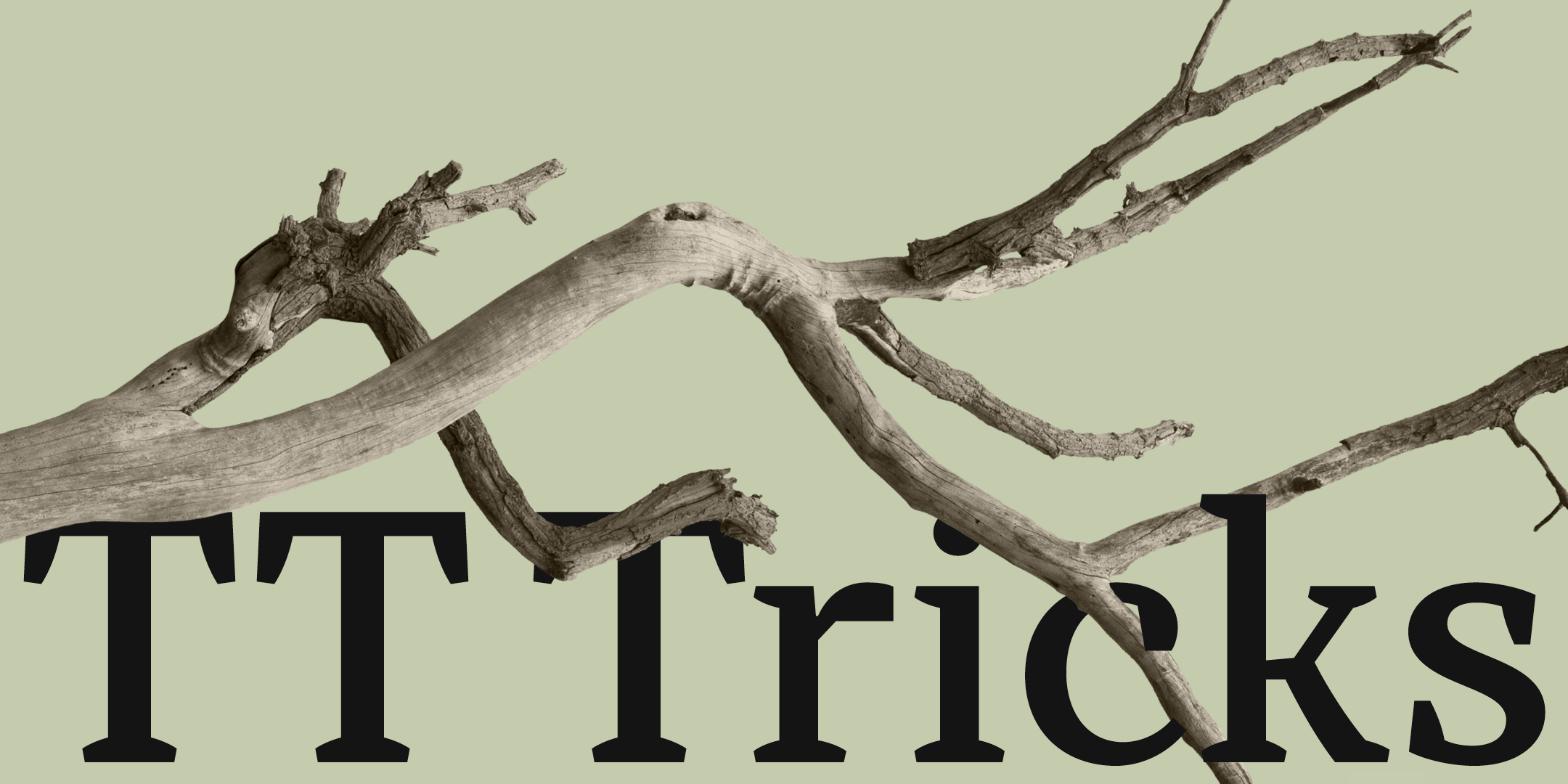
TT Tricks Font excels in creative agency branding, magic show posters, entertainment industry logos, children's book illustrations, toy packaging, carnival signage, amusement park graphics, and playful advertising campaigns. This dynamic typeface brings whimsical energy and creative flair to any project requiring fun, innovative, and attention-grabbing typography.
What makes TT Tricks Font exciting is its playful unpredictability and creative versatility that mirrors the art of magic and illusion. The font features quirky letterforms with unexpected design elements that create visual surprise and delight. Its innovative character variations and creative flourishes make each word feel like a small performance, perfect for brands wanting to convey creativity, innovation, and entertainment value. The typeface's magical appeal ensures your designs will captivate audiences and create memorable impressions.
The TT Tricks Font family includes Regular, Bold, Light, and Display variants, each offering different levels of visual impact and creative expression. The family features alternative character sets, decorative elements, and special symbols that enhance its versatility for entertainment and creative projects. These variants provide designers with multiple options for creating engaging, playful typography that maintains professional quality.
For designers working on entertainment projects, creative branding, or child-focused designs, TT Tricks Font Free Download offers the perfect combination of professionalism and playfulness. Its creative character and entertaining aesthetic make it ideal for communicating fun, innovation, and magical experiences with authentic creative energy and captivating visual charm.